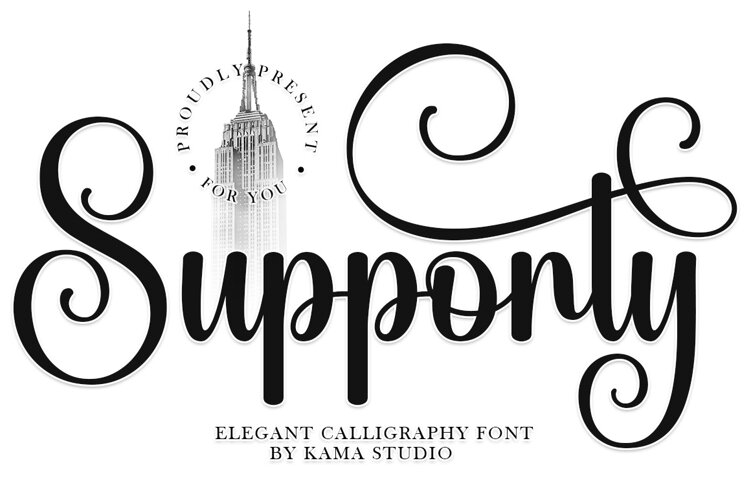
Supporty
Introducing Supporty, the epitome of elegant calligraphy fonts, striking a unique balance between traditional aesthetics and modern expression. Unleashing the potent allure of gorgeous delicate curves, gracefully intertwined strokes and ornate decorative swashes, Supporty is fashionably entwined with sophistication.
Tailor-made for encapsulating luxury and femininity in every curve, Supporty stands out, melding classical calligraphy elements with a fresh, expressive twist. Its unique letter forms and exquisite adornments render it an excellent choice for a broad spectrum of creative endeavours. From wedding invitations and deluxe branding to fashion designs, customized stationery, attractive packaging, online content graphics, heartwarming greeting cards, enlightening quotes, and all forms of refined typography projects, Supporty impeccably fits the bill.
Designed with the intent of infusing all words with elegance, style and a memorable romantic flair, Supporty adorns your designs with an authentically refined handwritten character. Enter the world of Supporty and allow your designs to express their grace and charisma.